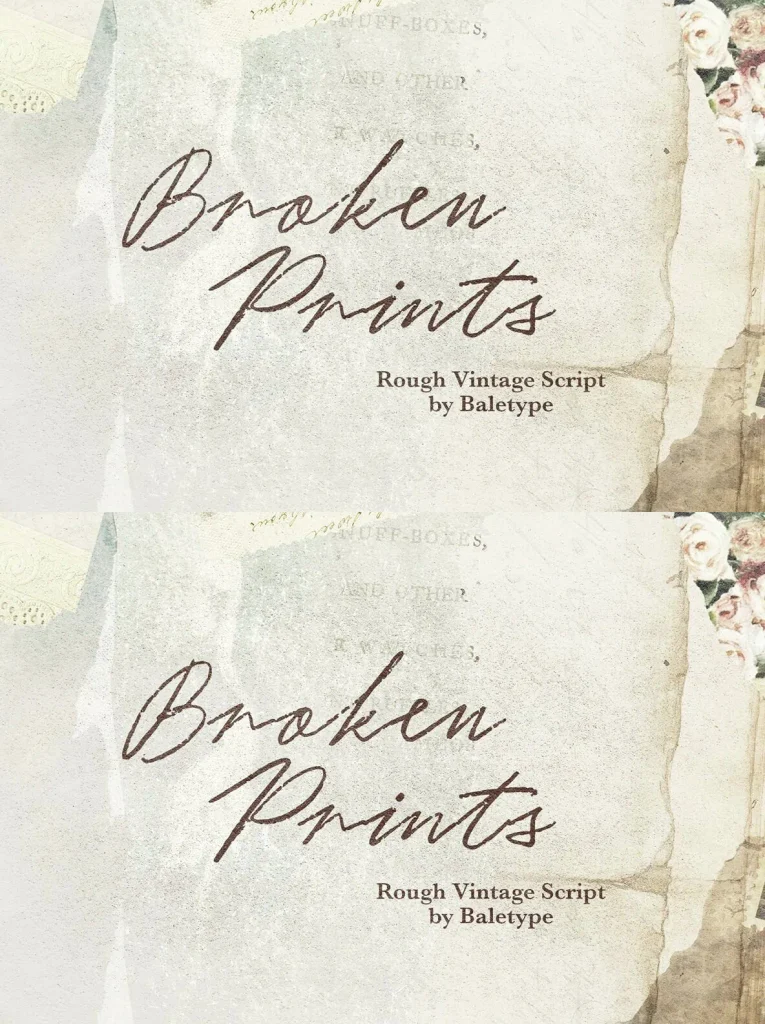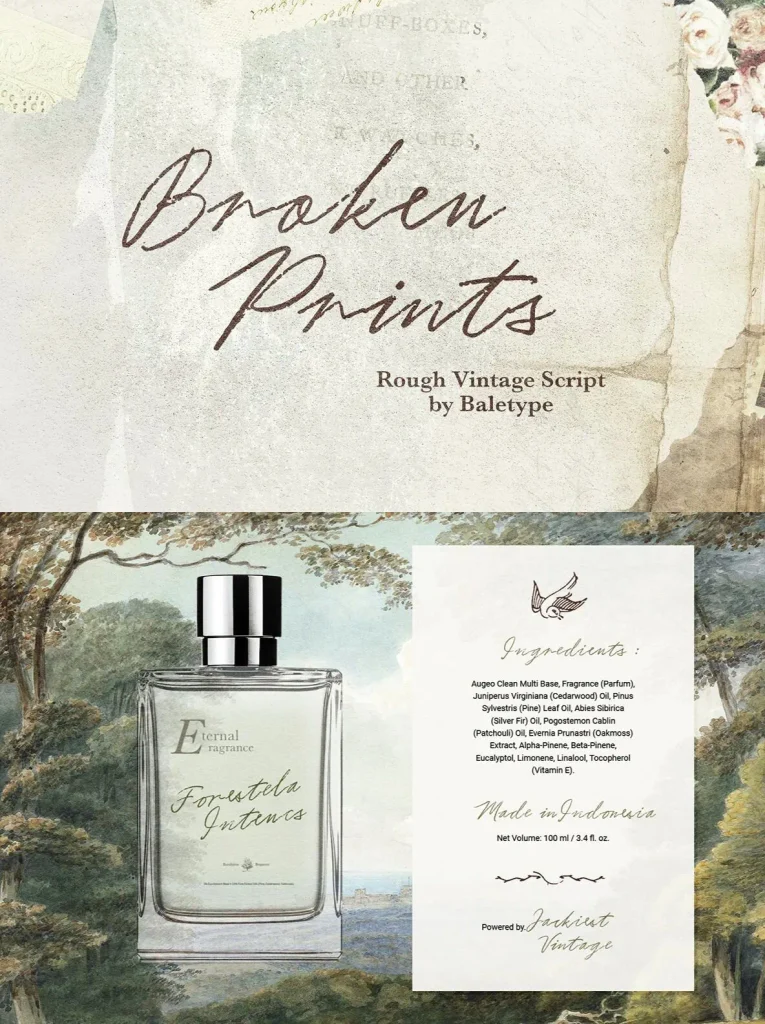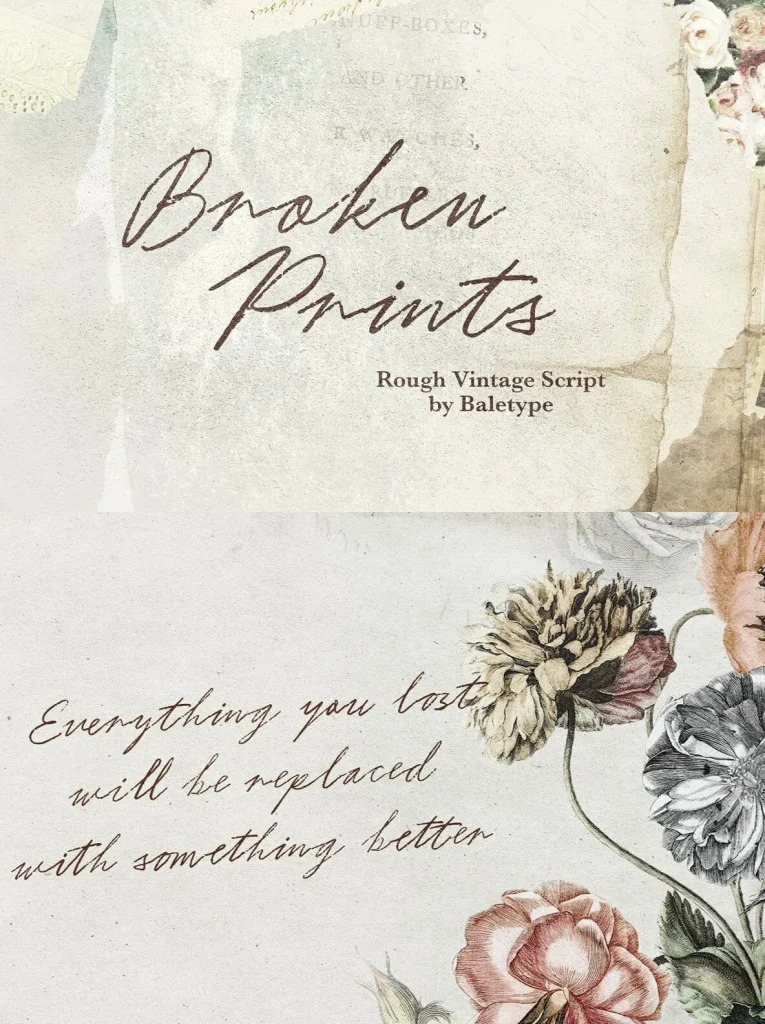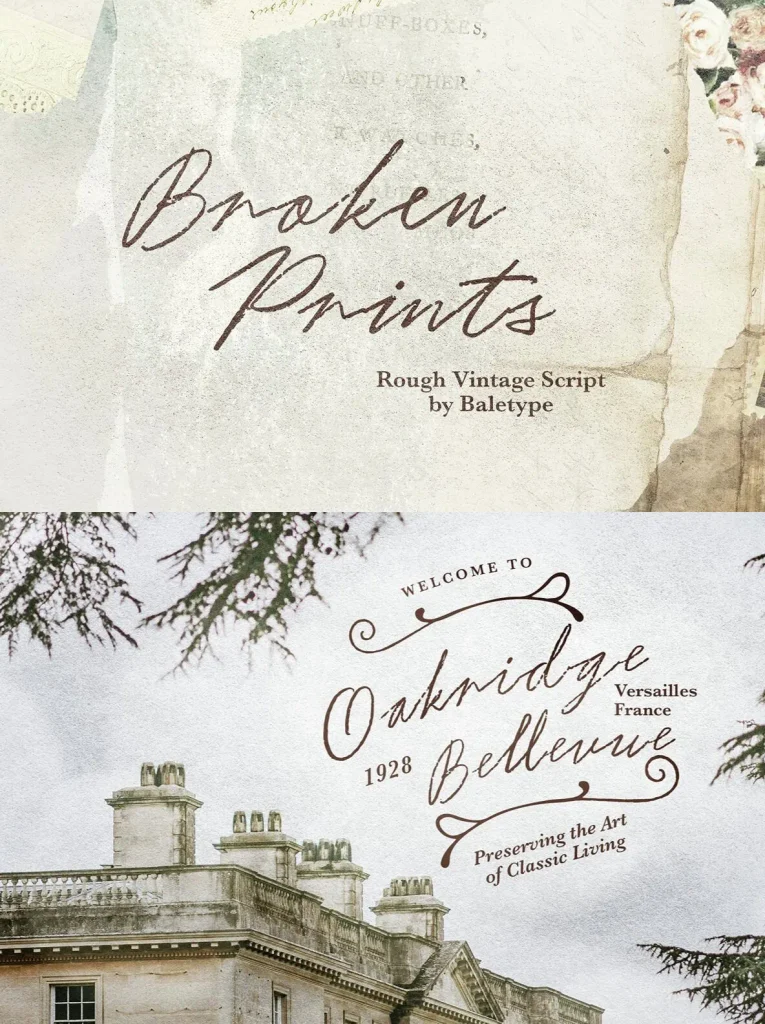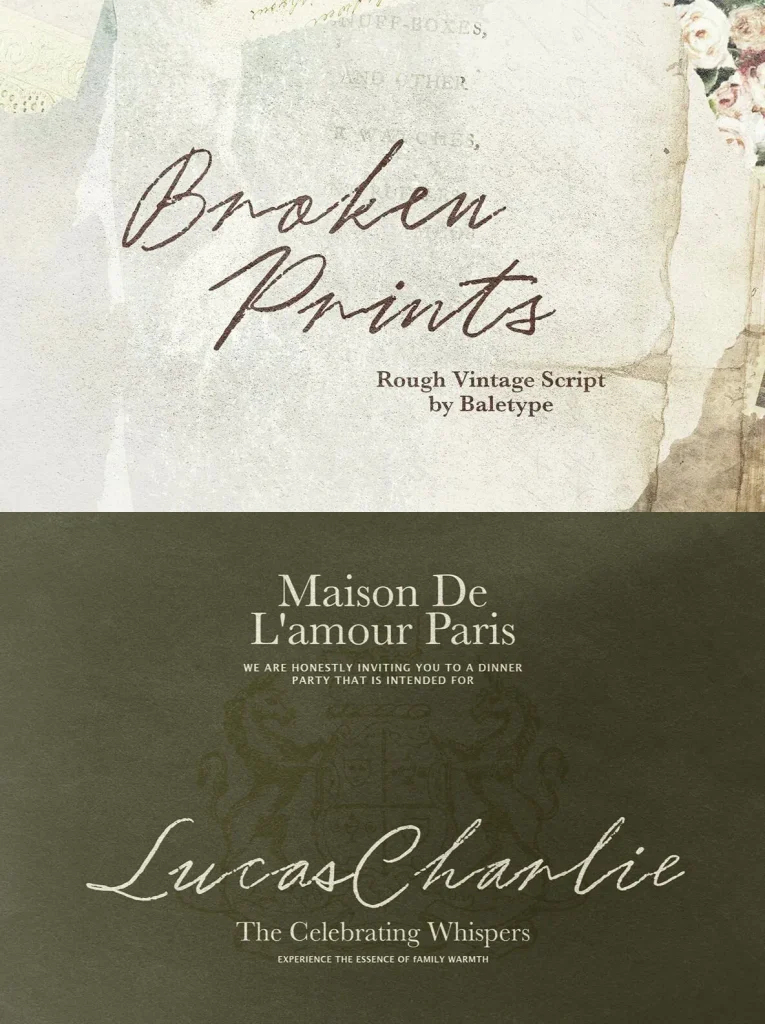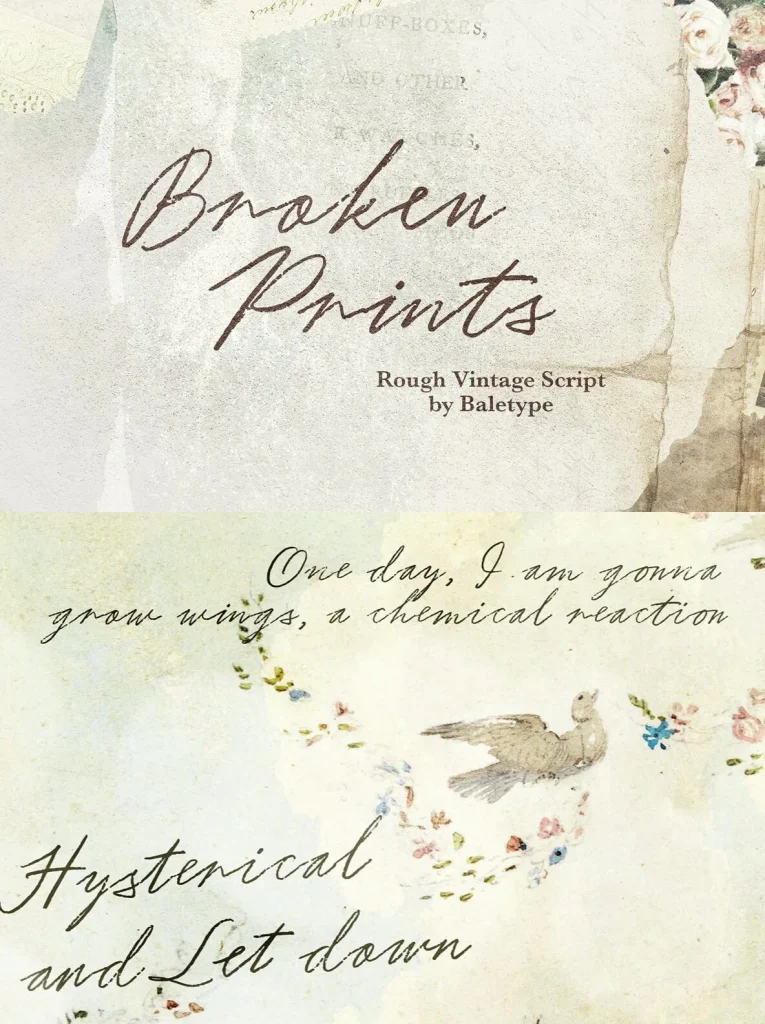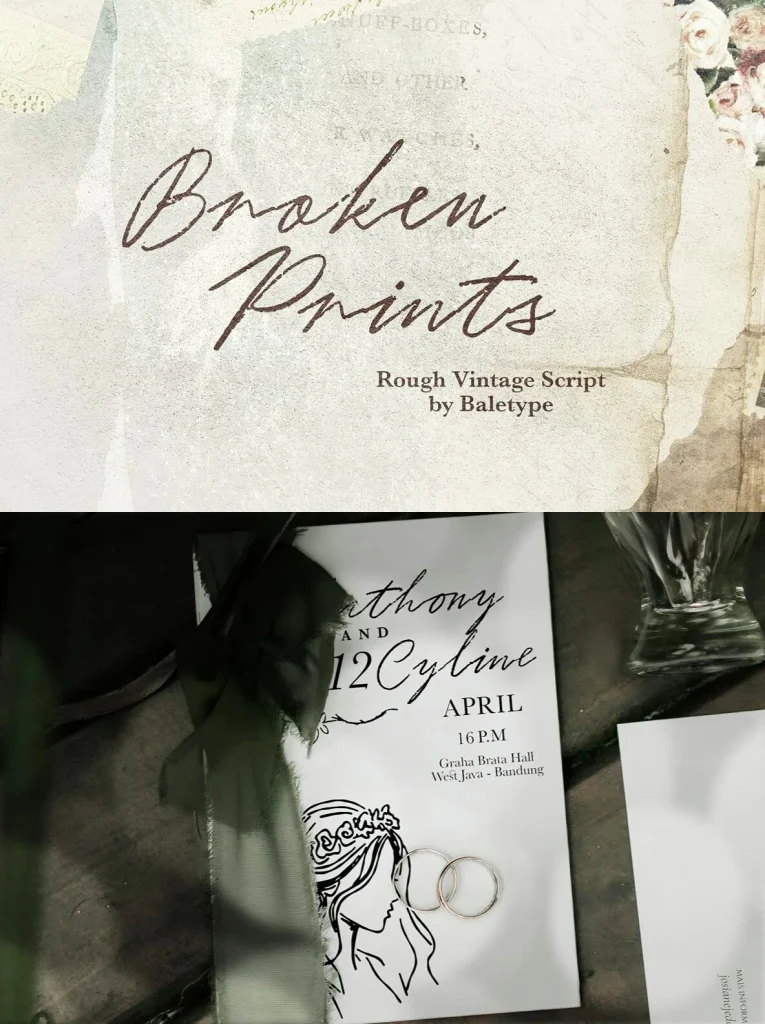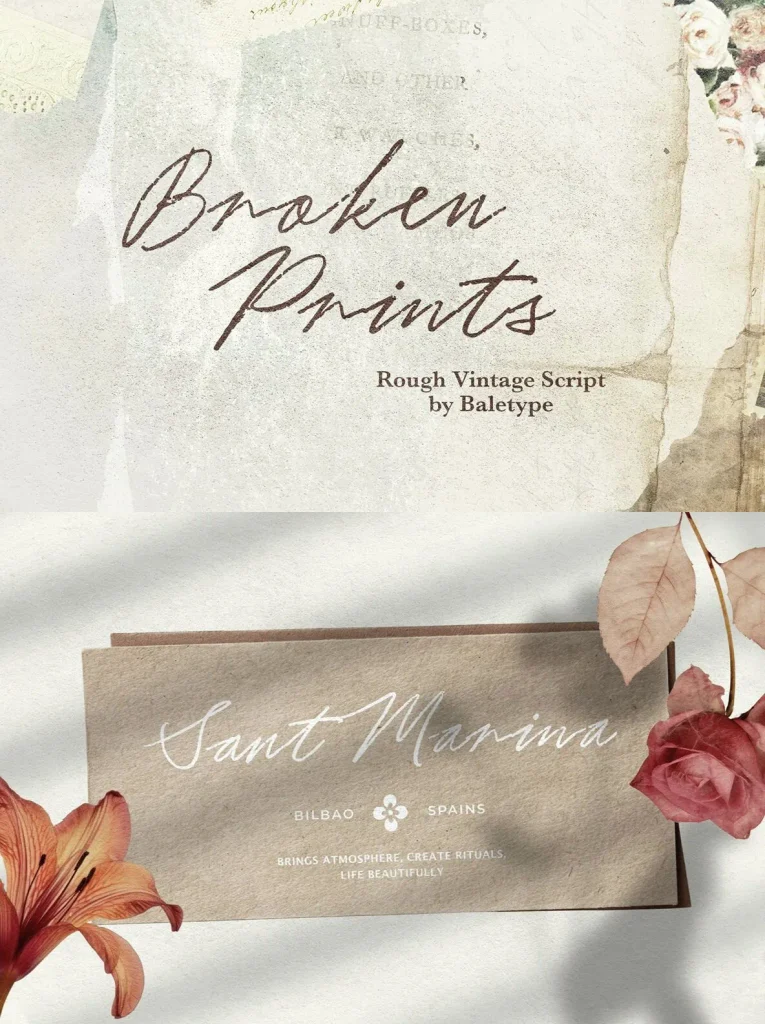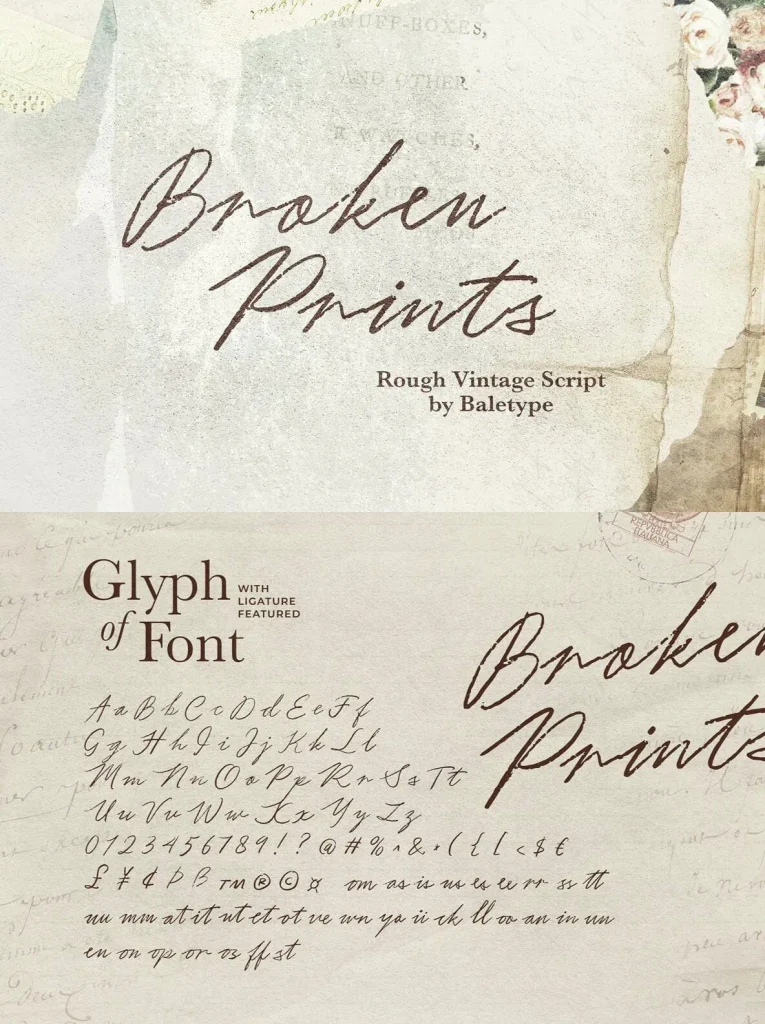
Broken Prints Font
Broken Prints — Weathered Script Character
Broken Prints is a rough, vintage-style script font with a textured and rugged shape. Its faded-ink appearance gives lettering a naturally handwritten feel, making it well suited to designs that need an aged, worn, or personal character.
Use Broken Prints for branding, logos, quotes, handwriting-style layouts, signatures, and other design projects that call for an old and vintage look. The font includes ligatures for more natural letter connections and supports multiple languages, giving you practical flexibility across a range of typographic work.